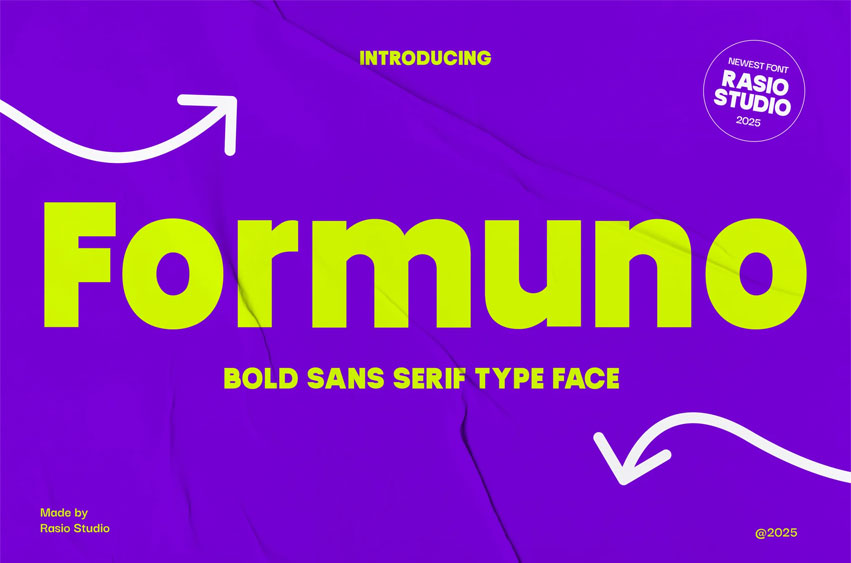
Formuno Font is a bold sans serif typeface built for high-energy visuals, sports branding, and loud messaging. With strong geometric construction, clean angles, and impactful weight, it commands attention across posters, web interfaces, packaging, and motion graphics. The font balances versatility with personality, making it a powerful choice for modern brands, especially in fitness, activewear, sports gear, and digital campaigns. All-caps structure with consistent kerning makes it ideal for impactful headlines and logos.
Suitable For: sports branding, activewear packaging, outdoor campaigns, fitness posters, web landing pages, supplement labels, advertising banners, tech events, UI headlines, bold social media graphics.